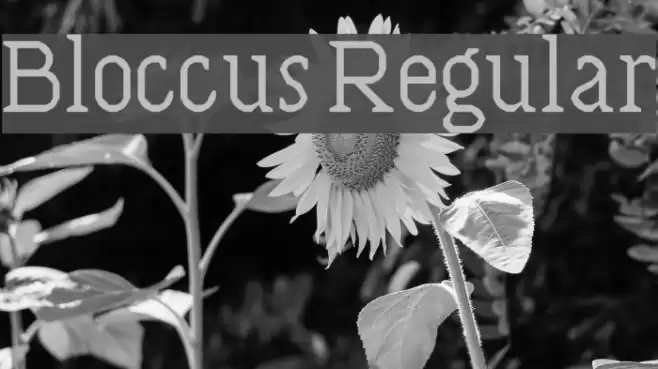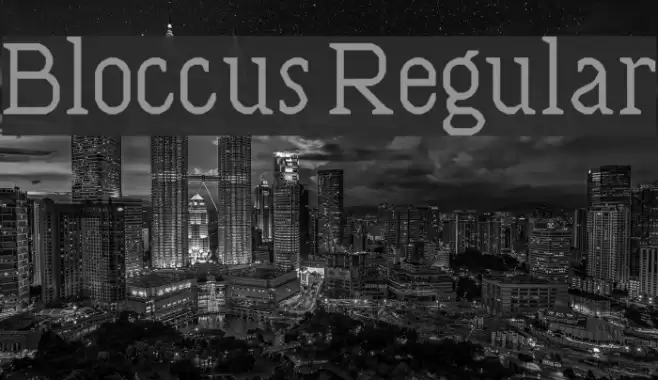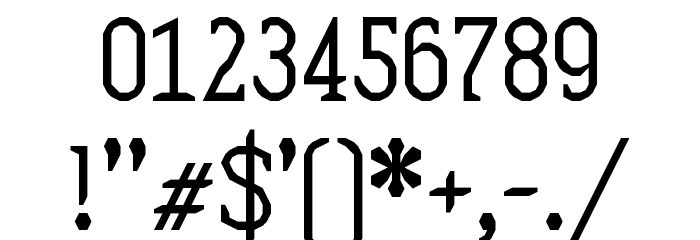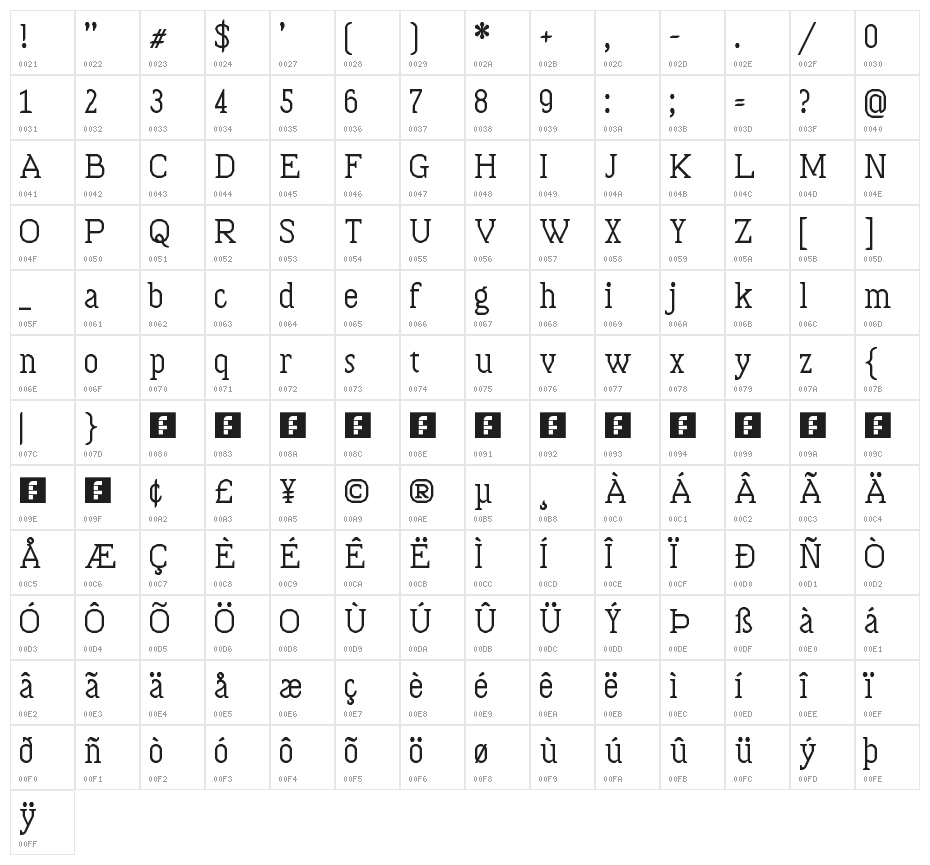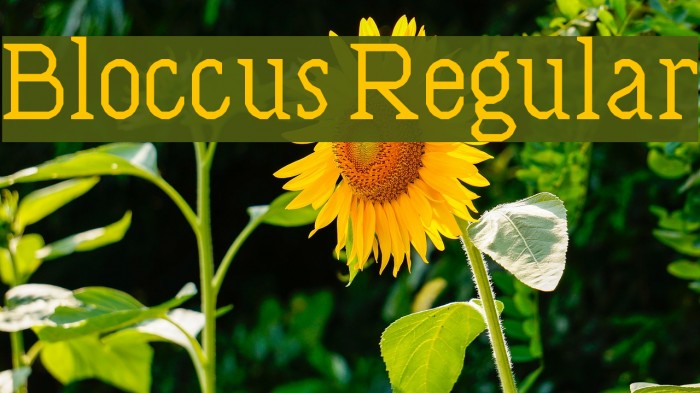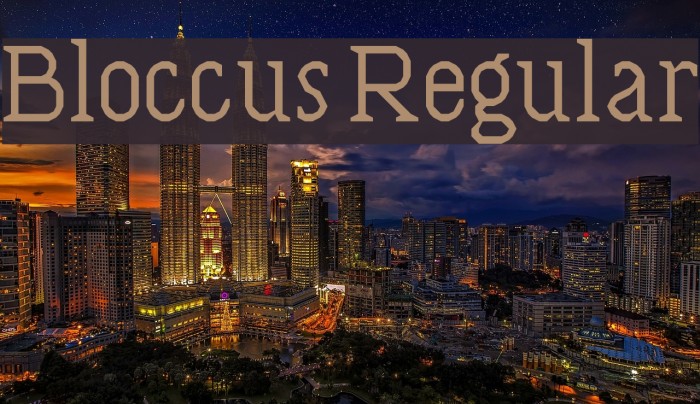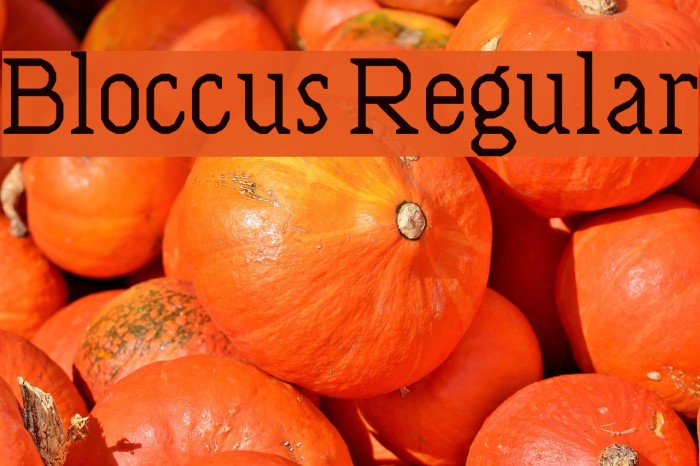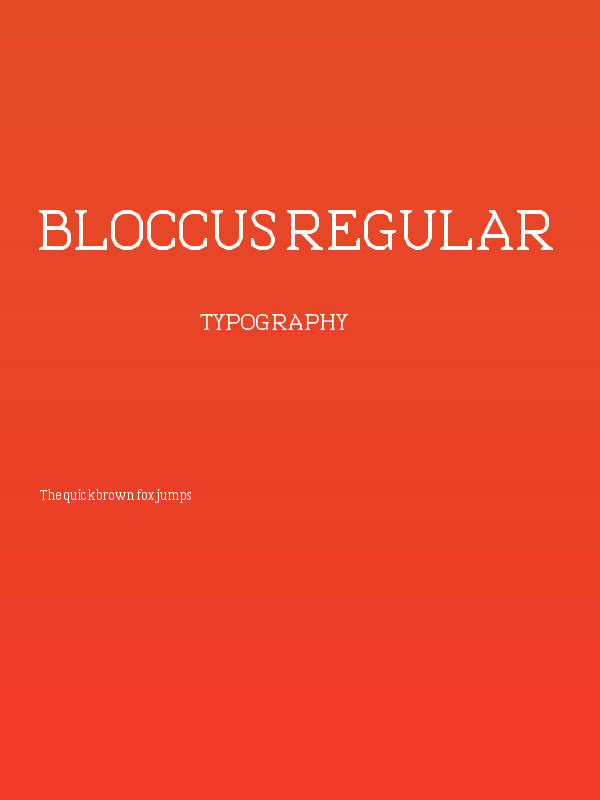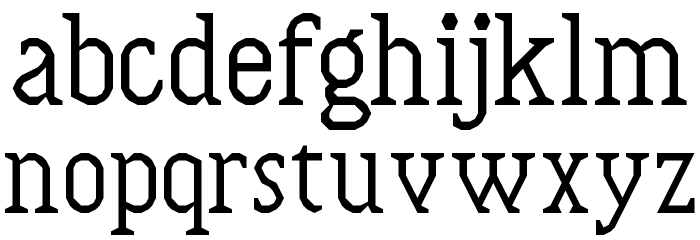
Bloccus Regular Font
Bloccus Regular Description
This font features a robust and structured design with a slab serif style. The characters are well-defined with consistent stroke widths, giving it a strong and authoritative presence. The uppercase letters are bold and commanding, while the lowercase letters maintain a harmonious balance with slightly rounded edges. The numerals are clear and legible, making them suitable for various applications. Special characters are distinct and maintain the overall aesthetic of the font. The font's design is versatile, making it suitable for both digital and print media.
A robust slab serif font with a strong, structured design from Uncategorized fonts.
- Proposed Projects: Ideal for editorial design, branding, signage, and packaging projects.
- Overall Style: Classic